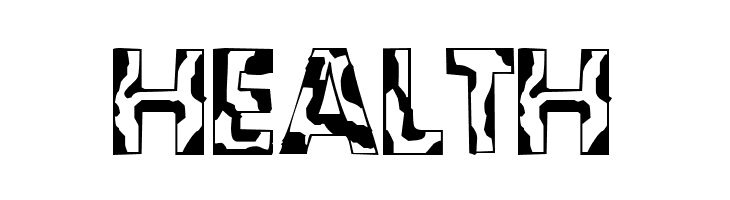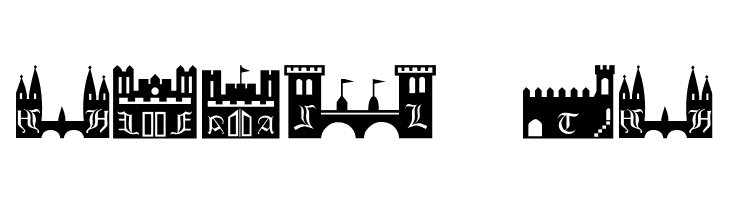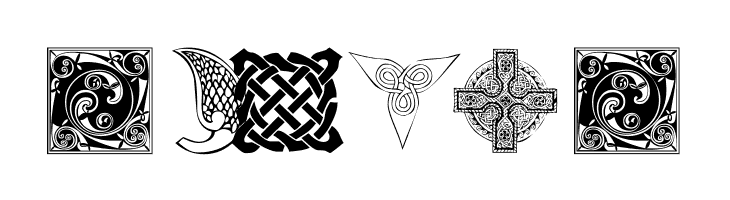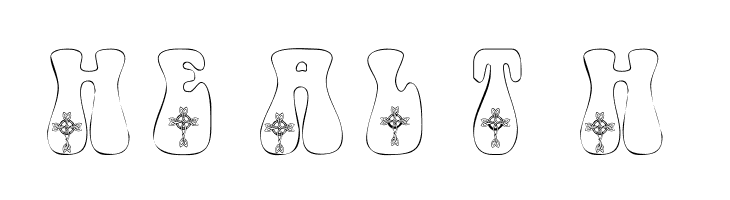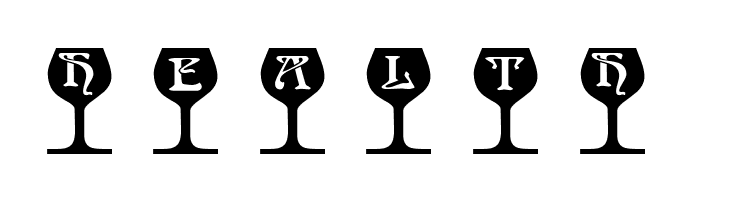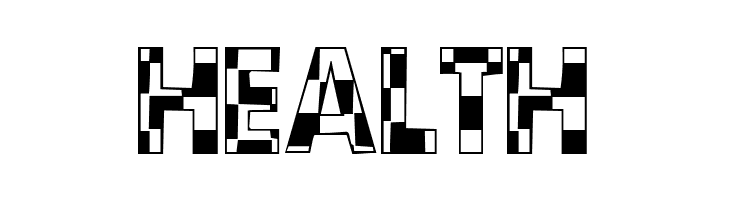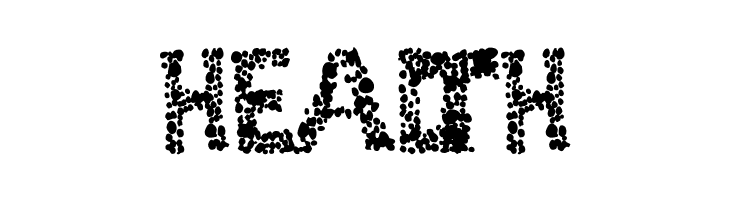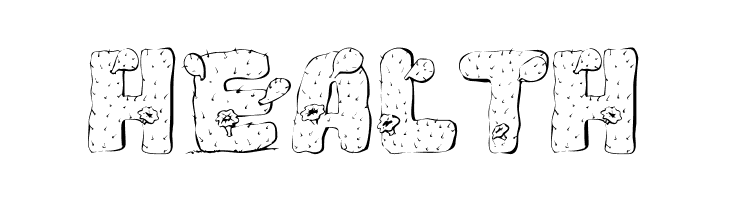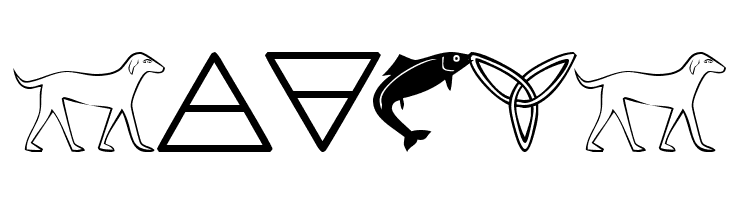
A bold, camouflage-patterned font with a playful and adventurous style.
A whimsical font styled to resemble candles, complete with wax drips and flames.
A decorative font resembling castle silhouettes with intricate medieval details.
Ornamental Celtic knotwork and symbol dingbats.
A decorative font with Celtic knot designs within bold, rounded characters.
A decorative font with characters inside chalice silhouettes.
A bold, geometric font with a striking checkered pattern.
A bold, cheetah print-inspired decorative font with medium contrast.